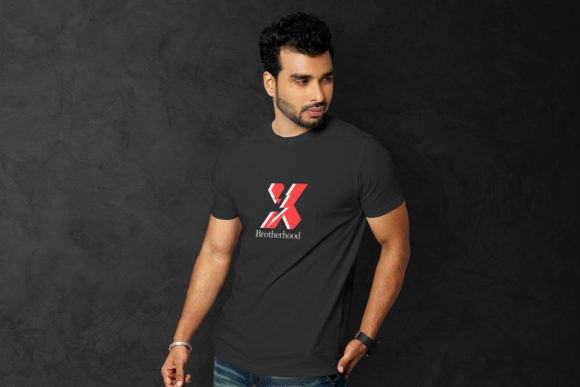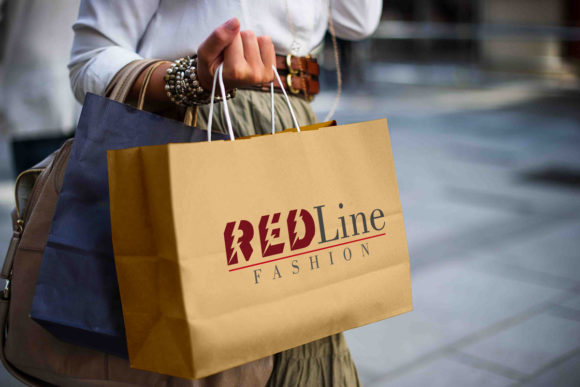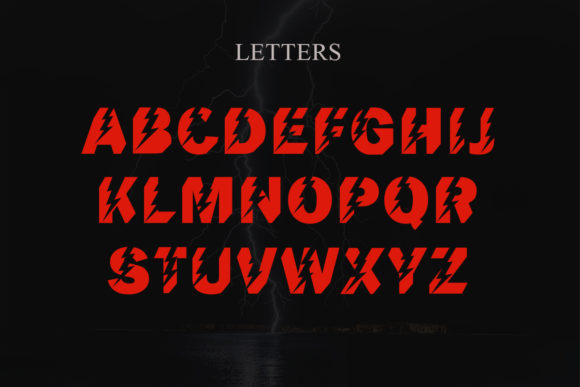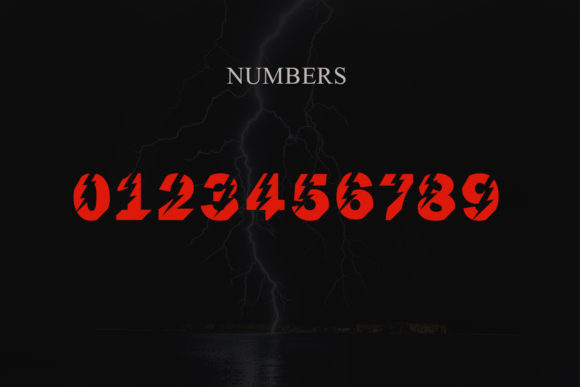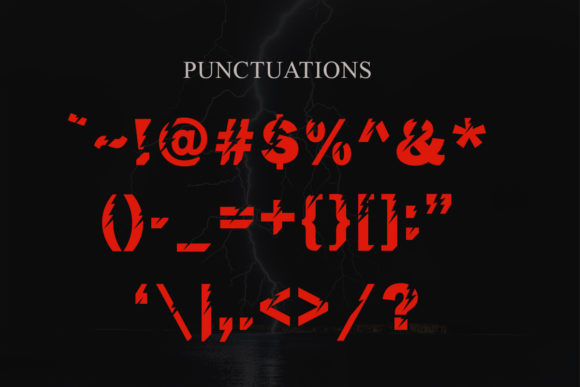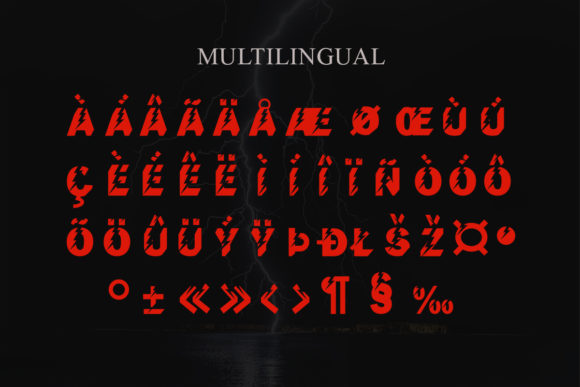
Bledhex Font: Unleash the Power of Bold Typography
In the world of typography, fonts play a crucial role in conveying the tone and personality of a brand or design. When it comes to making a statement, a bold and assertive font is essential. This is where Bledhex comes in – a powerful display font designed to elevate your sports-related, advertisement, power drinks, and gear creations to the next level.
The Power of Bledhex
Bledhex is a bold, aggressive, and powerful-looking display font that exudes confidence and energy. Its assertive design makes it perfect for projects that require a strong visual impact. Whether you’re creating a logo, poster, or advertisement, Bledhex is sure to grab attention and leave a lasting impression.
Key Features of Bledhex
- Bold and Assertive Design: Bledhex is designed to make a statement. Its bold and aggressive design ensures that your text stands out from the crowd.
- High-Impact Typography: With its powerful and dynamic design, Bledhex is perfect for creating high-impact typography that grabs attention.
- Versatile: Bledhex is a versatile font that can be used for a wide range of projects, from sports-related designs to power drinks and gear creations.
- Easily Readable: Despite its bold design, Bledhex is easily readable, making it perfect for use in a variety of contexts.
Use Cases for Bledhex
Bledhex is a versatile font that can be used in a variety of contexts. Here are some use cases where Bledhex can make a significant impact:
- Sports-Related Designs: Bledhex is perfect for sports-related designs, such as logos, jerseys, and posters.
- Advertisements: Use Bledhex to create eye-catching advertisements that grab attention and drive results.
- Power Drinks: Bledhex is a great fit for power drinks and energy drink branding, packaging, and marketing materials.
- Gear Creations: Add Bledhex to your gear creations, such as t-shirts, hats, and other apparel, to give them a bold and assertive look.
Why Choose Bledhex?
With so many fonts available, why choose Bledhex? Here are some reasons why Bledhex stands out:
- Unique Design: Bledhex has a unique design that sets it apart from other fonts.
- High-Quality: Bledhex is a high-quality font designed to deliver exceptional results.
- Easily Customizable: Bledhex is easily customizable, allowing you to adjust the font to suit your needs.
In conclusion, Bledhex is a powerful display font that can elevate your designs to the next level. Its bold, aggressive, and assertive design makes it perfect for sports-related, advertisement, power drinks, and gear creations. With its versatility, readability, and high-impact typography, Bledhex is a great addition to any designer’s toolkit. So why wait? Add Bledhex to your collection today and start creating stunning designs that make a statement!